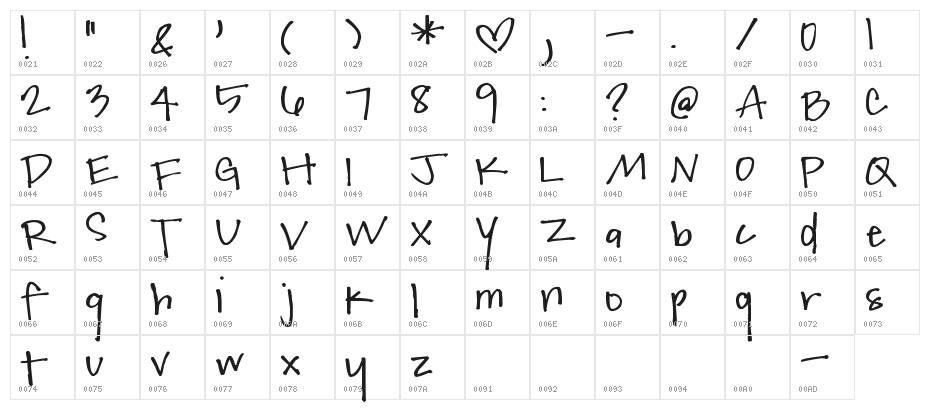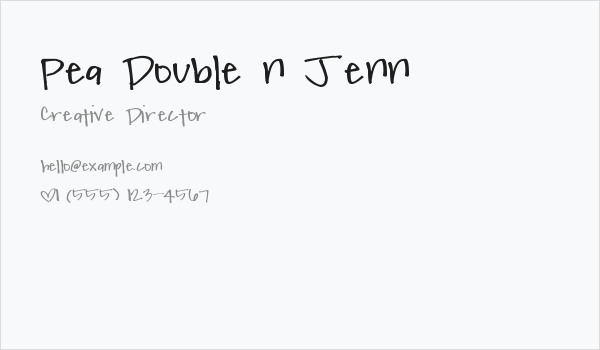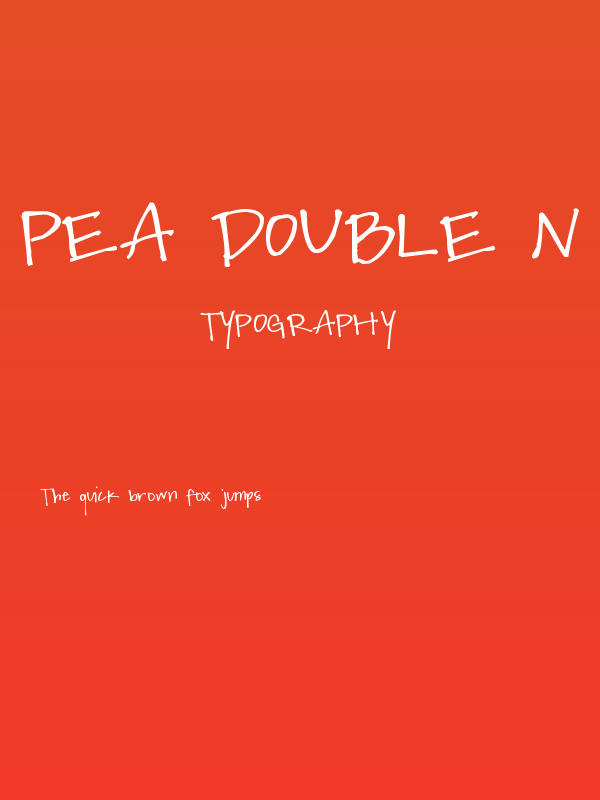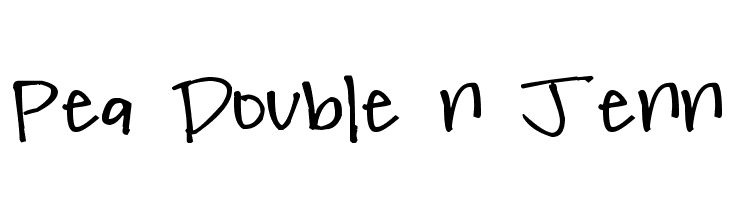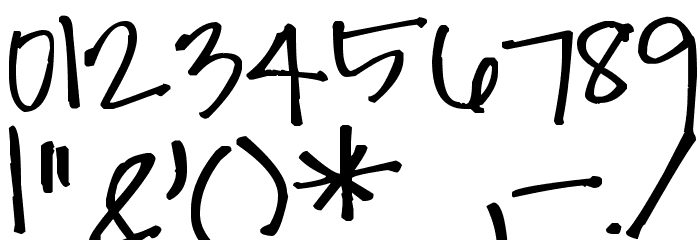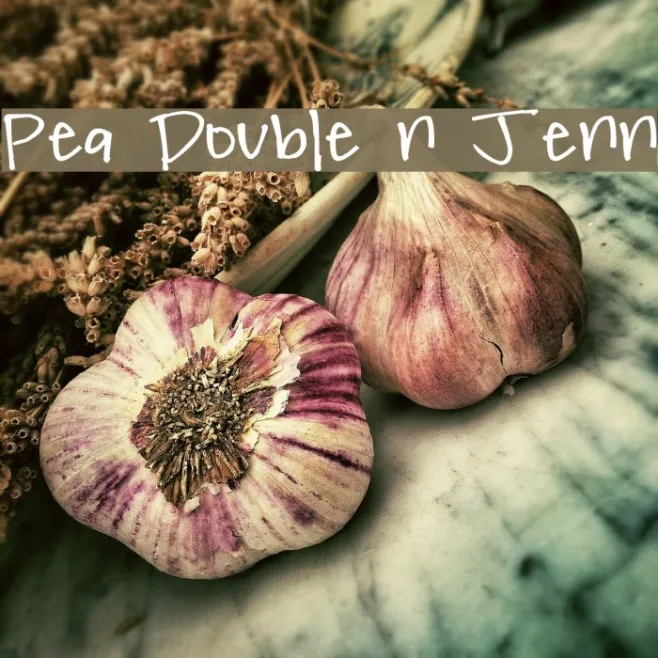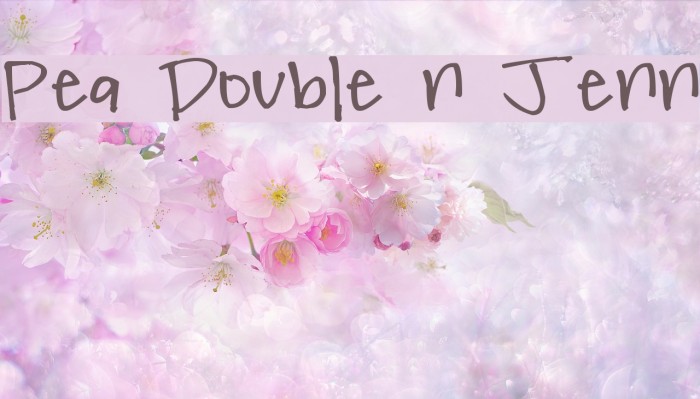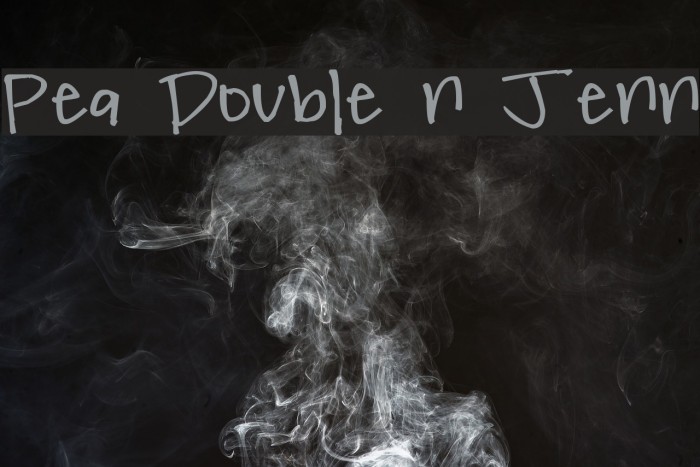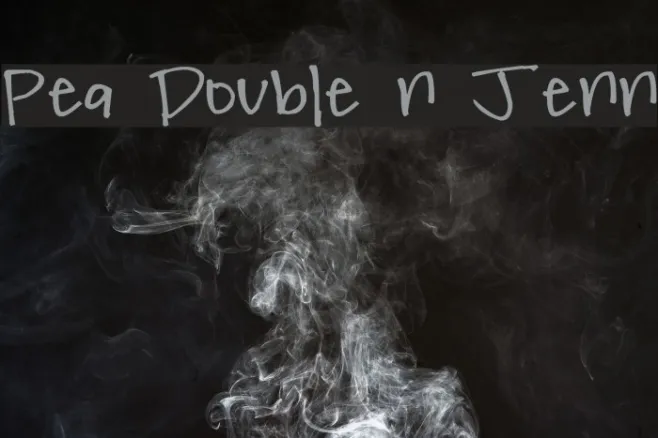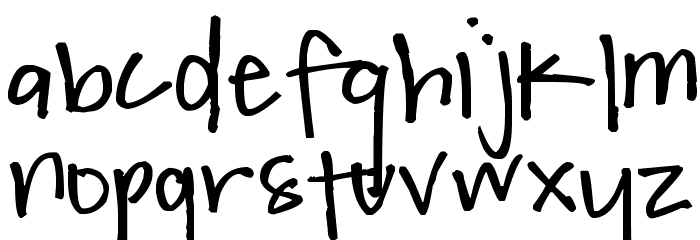
Pea Double n Jenn Font
Pea Double n Jenn Description
This playful and informal handwritten font exudes a casual and friendly vibe, characterized by its irregular strokes and varied line thickness. The letters are slightly tilted, adding a dynamic and lively touch to the overall appearance. Each character is uniquely crafted, giving the font a personal and authentic feel, reminiscent of a handwritten note or doodle. The uppercase and lowercase letters maintain a consistent style, while the numbers and special characters blend seamlessly, ensuring versatility in various design contexts. The font's organic flow and whimsical nature make it suitable for projects that aim to convey warmth and approachability.
| Overall Style | Casual |
| Use Case | Headlines, Logos, Informal Text |
| Proposed Projects | Ideal for personal invitations, greeting cards, children's books, and creative branding projects. |